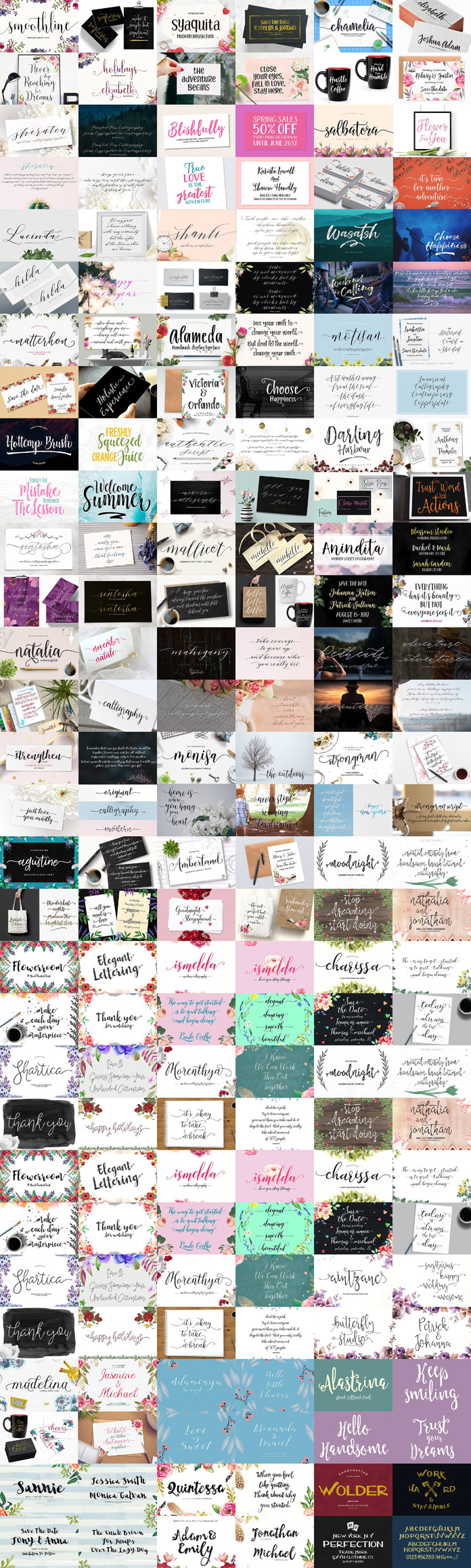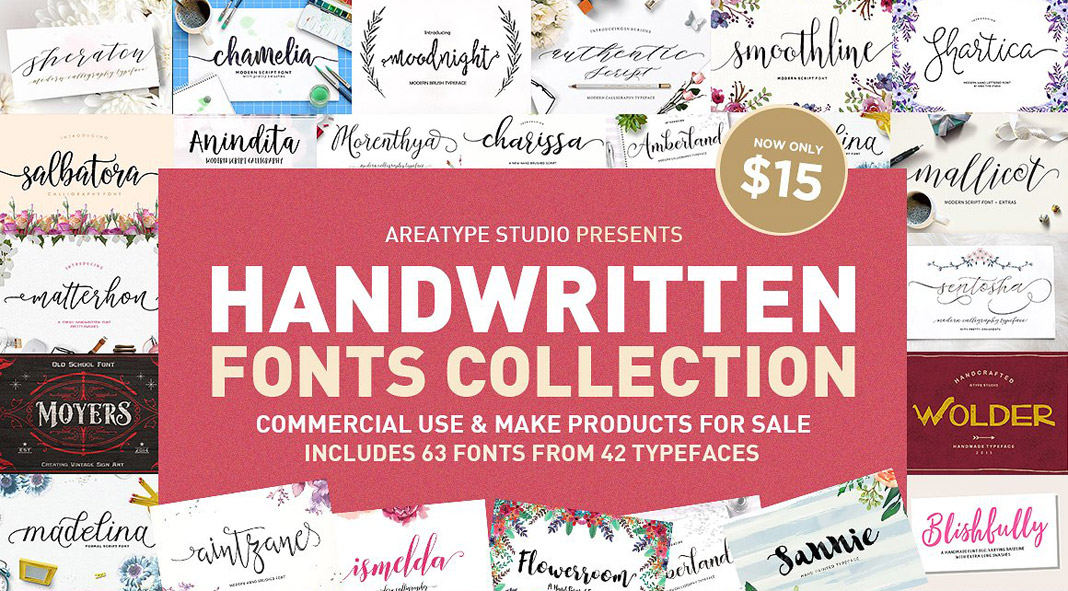
63 handwritten fonts from 42 typefaces available in one huge bundle!
Areatype is a small type foundry specializing in a variety of handwritten styles. Here comes your chance to get all their beautiful typefaces in a huge bundle for only $15! So what’s included? The collection contains 42 typefaces, some of them include different versions – resulting in a total of 63 fonts. Equipped with a variety of calligraphy, signature, brush lettering, and hand lettering styles, this collection is well suited for different needs such as greeting cards, logos, business cards, quotes, posters, branding, stickers, weddings, signage, packaging, birth announcements, blogs, photo overlays, murals, quotes, bags, t-shirts, etc. Just have a look at the images below or click on the following link to get further information.